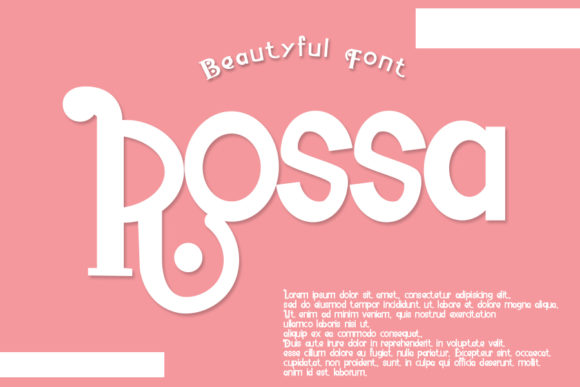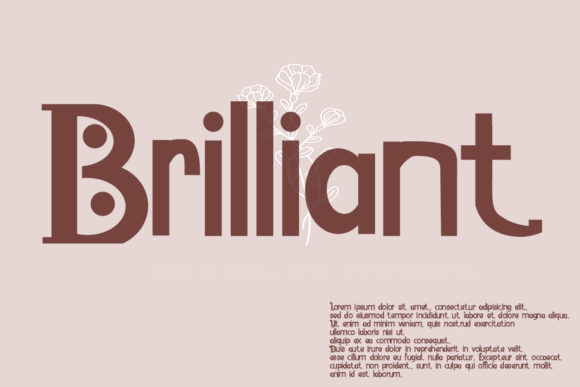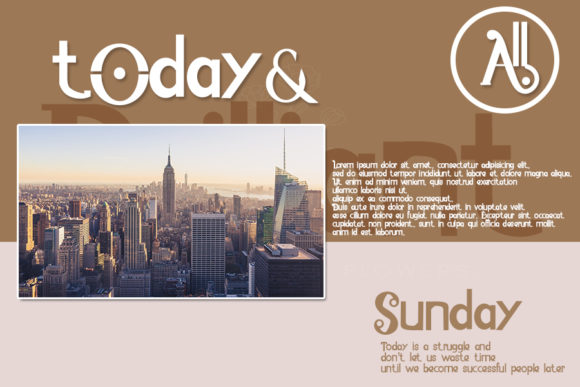
Introducing Aurolla Font: Elevate Your Designs to New Heights
Are you tired of using the same old fonts in your designs? Look no further than Aurolla Font, a cool and distinct display font that’s out of this world. Expertly designed to make your creation stand out, Aurolla has the potential to take your creative ideas far further. In this article, we’ll dive into the features and benefits of Aurolla Font, and explore how it can elevate your designs to new heights.
What is Aurolla Font?
Aurolla Font is a modern display font that’s perfect for designers and crafters looking to add a touch of uniqueness to their work. With its sleek and futuristic design, Aurolla is sure to grab attention and leave a lasting impression. Whether you’re working on a logo, poster, or social media graphic, Aurolla Font is the perfect choice for anyone looking to make a statement.
Key Features of Aurolla Font
- Unique Design: Aurolla Font boasts a one-of-a-kind design that’s sure to set your work apart from the rest.
- High-Quality: With its crisp and clean lines, Aurolla Font is perfect for both digital and print applications.
- Versatile: Aurolla Font can be used for a wide range of projects, from logos and posters to social media graphics and more.
- Easily Readable: Despite its unique design, Aurolla Font is still highly readable, making it perfect for use in a variety of contexts.
Benefits of Using Aurolla Font
So why choose Aurolla Font for your next project? Here are just a few benefits of using this amazing display font:
- Adds Visual Interest: Aurolla Font is sure to add visual interest to your designs, making them stand out from the crowd.
- Enhances Creativity: With its unique design, Aurolla Font can help inspire creativity and take your designs to new heights.
- Perfect for Branding: Aurolla Font is perfect for use in branding and advertising, helping to create a lasting impression on your target audience.
Tips for Using Aurolla Font
Here are a few tips for getting the most out of Aurolla Font:
- Use it as a Headline Font: Aurolla Font is perfect for use as a headline font, adding visual interest and drawing attention to your message.
- Experiment with Colors: Try pairing Aurolla Font with different colors to create a unique and eye-catching design.
- Mix and Match: Don’t be afraid to mix and match Aurolla Font with other fonts to create a truly unique look.
Who is Aurolla Font for?
Aurolla Font is perfect for:
- Graphic Designers: Looking for a unique and versatile font to add to their arsenal.
- Crafters: Creating handmade cards, scrapbook pages, and other paper crafts.
- Small Business Owners: Looking for a professional and eye-catching font to use in their branding and advertising.
In conclusion, Aurolla Font is a cool and distinct display font that’s perfect for designers and crafters looking to elevate their designs to new heights. With its unique design, high-quality lines, and versatility, Aurolla Font is sure to become a go-to font in your collection. So why wait? Download Aurolla Font today and take your designs to new and exciting places!